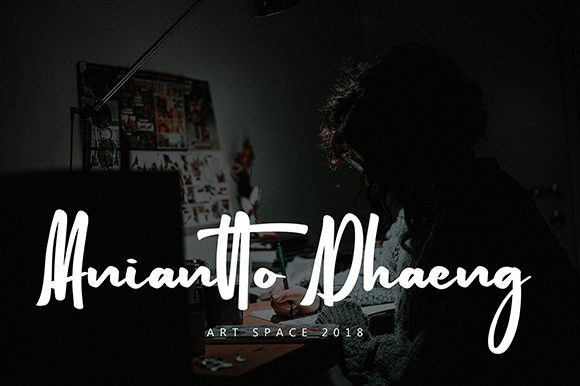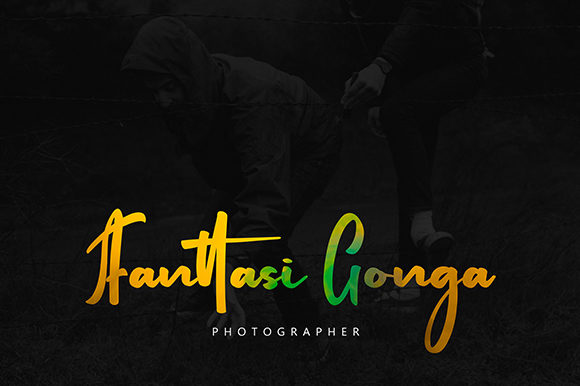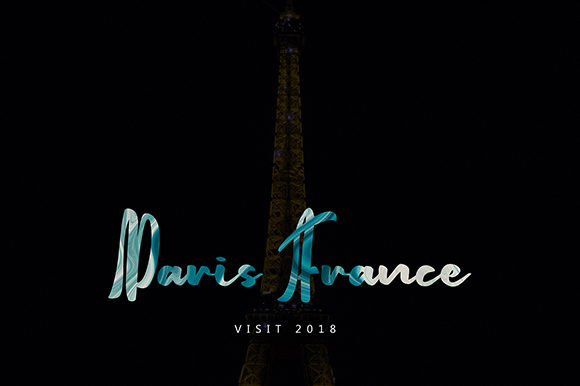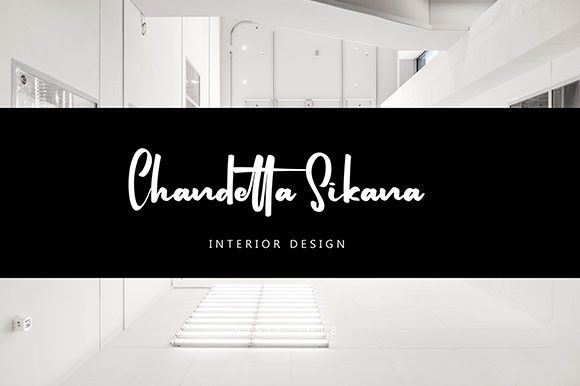
Metters Font
About Metters Font
Metters is a unique and bold handwritten font with an undeniably authentic charm. Get inspired by its unique feel, and turn any design project into a stand out.